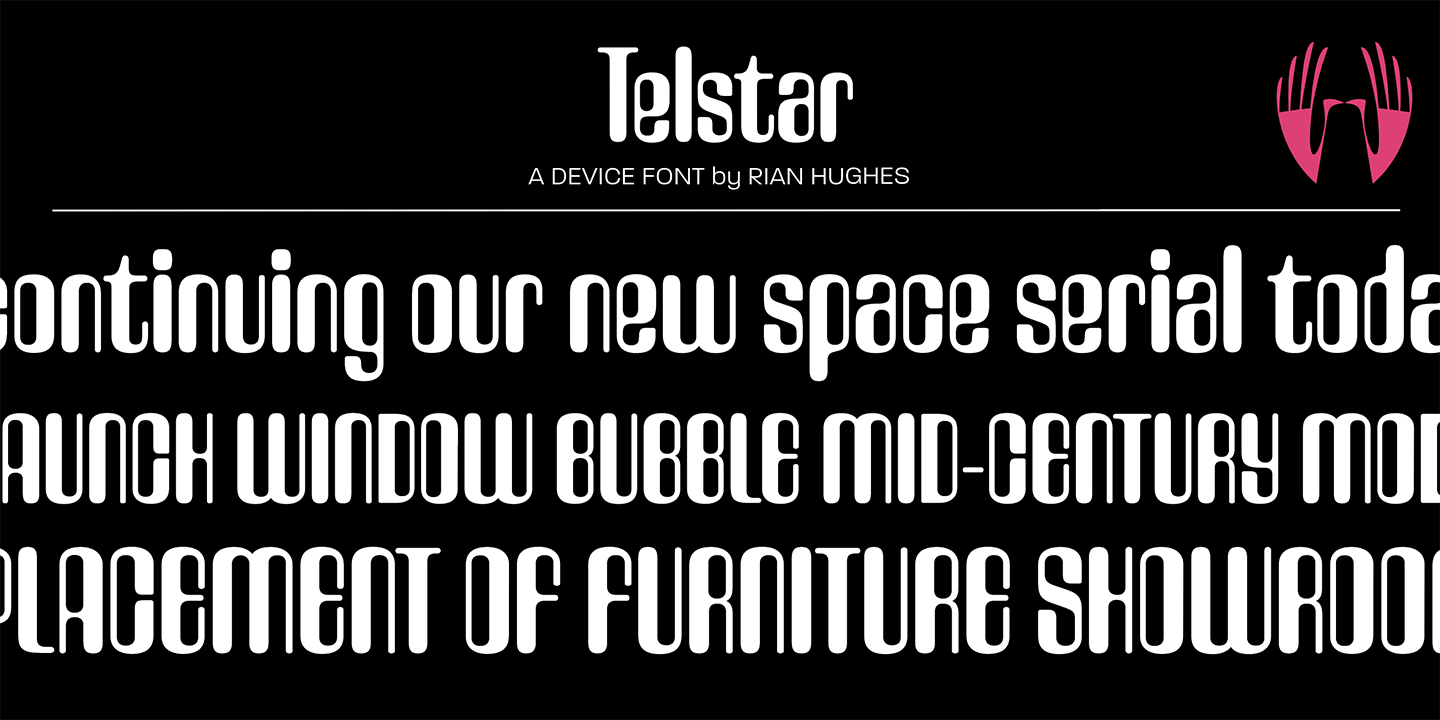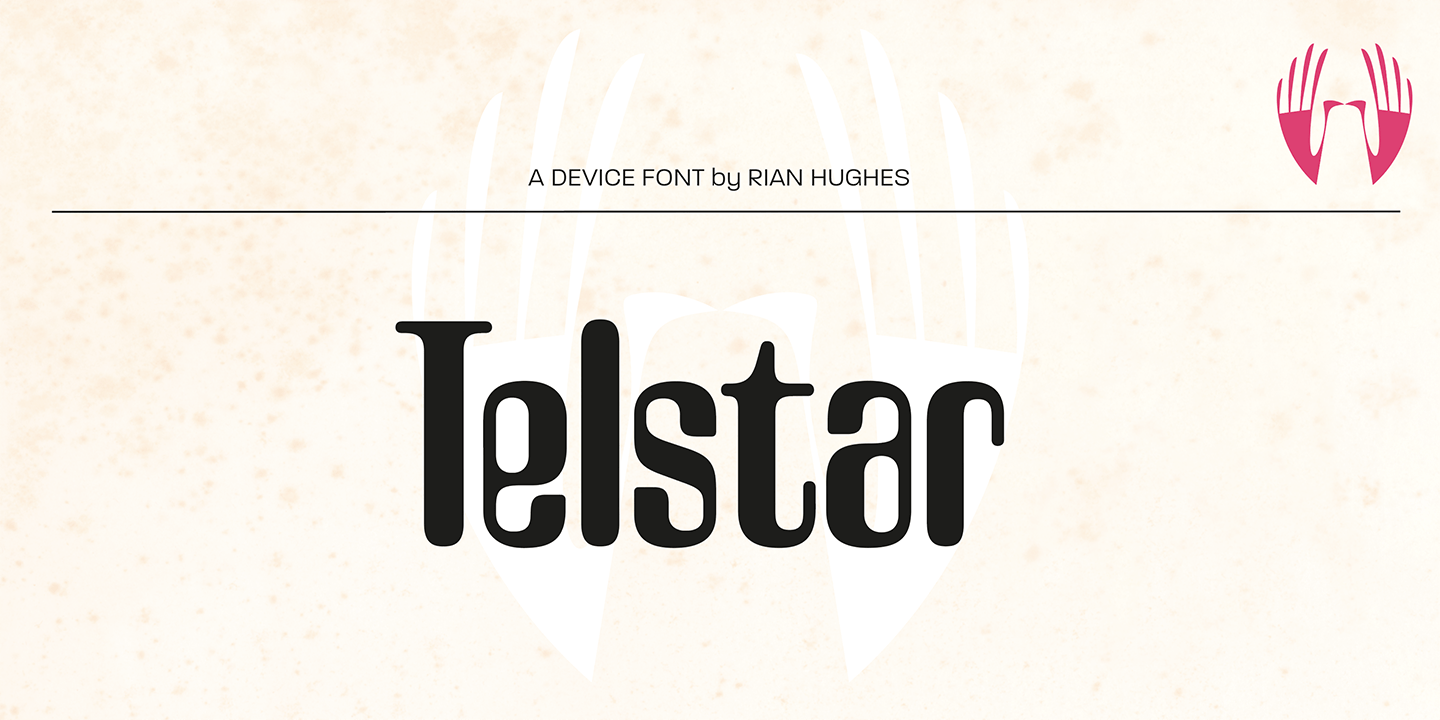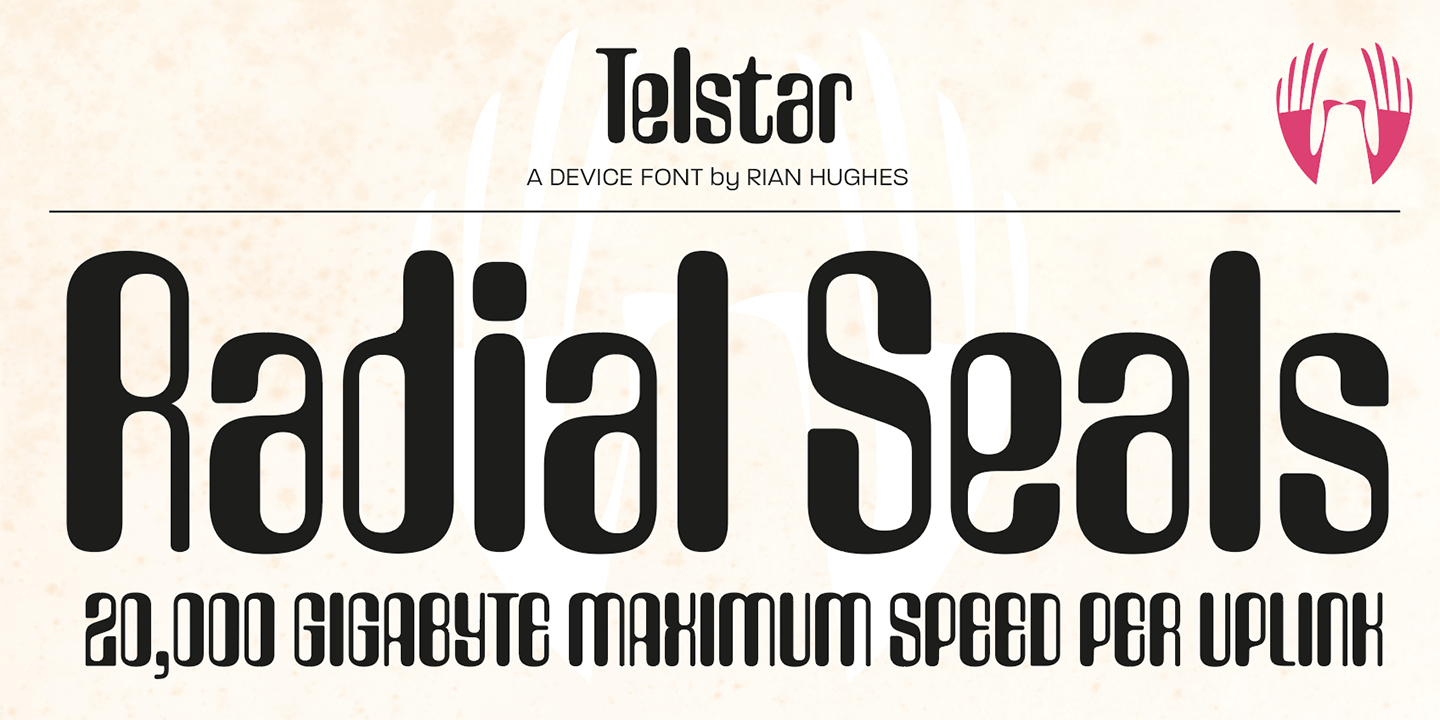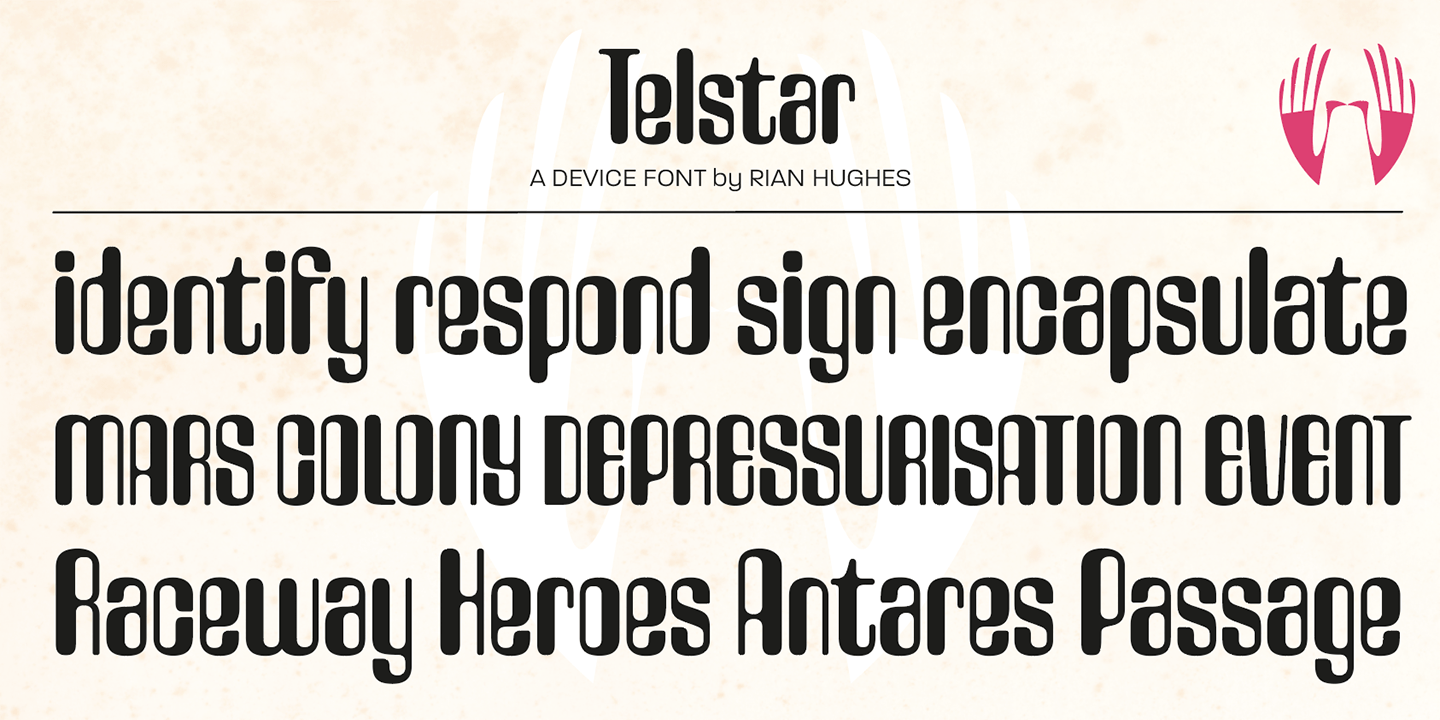
Telstar
Font Family by Device
A space-age headline font, Telstar explores a computer-readable sci-fi aesthetic based on an obround lozenge pierced with off-centre holes; the left-right weight switch derives from early optical recognition typefaces.